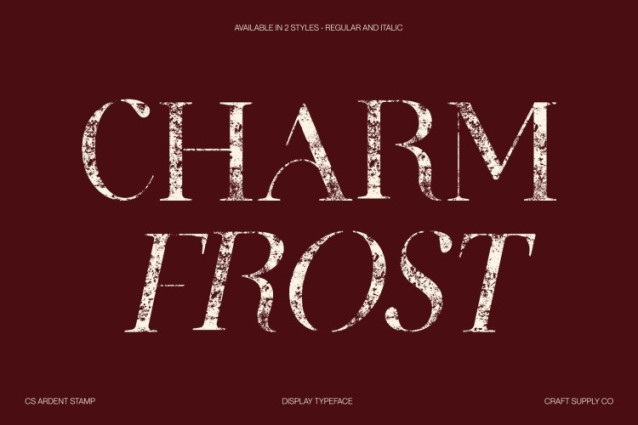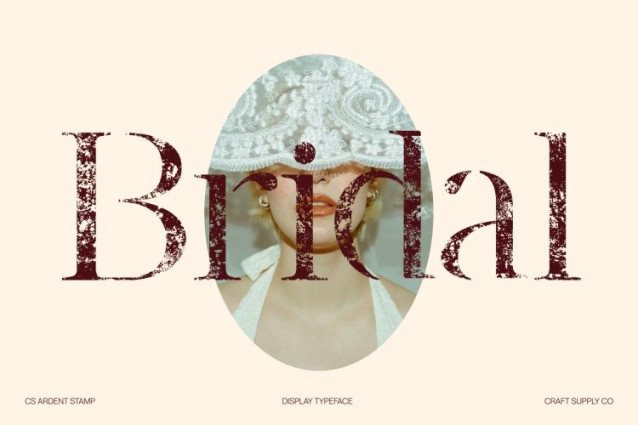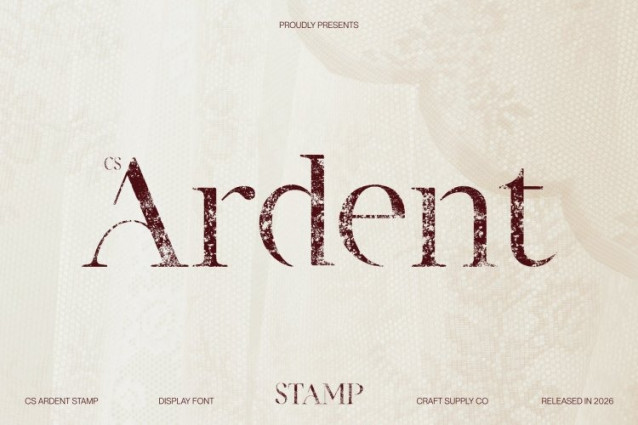
CS Ardent Stamp Font
CS Ardent Stamp Font This is an elegant serif display font that blends timeless serif craftsmanship with a modern stencil construction. Its bold serifs and clean cutout details create a structured, confident appearance that feels both refined and contemporary, making it suitable for sophisticated visual identities.
Stamp Texture with Classic, Aged Character
The stamped texture introduces subtle imperfections and distressed details, giving this font a vintage and handcrafted feel. This worn effect softens the sharp stencil cuts, adding depth, warmth, and an old-print aesthetic that enhances its artistic and authentic character.
Bold Elegance for Branding and Promotion
Designed to command attention while maintaining elegance, this font is ideal for branding, logos, packaging, and promotional materials. Its combination of strong serif forms, stencil clarity, and textured finish creates a distinctive visual voice that feels professional, memorable, and authoritative.
Versatile Display Font for Impactful Design
From high-end branding and editorial headlines to posters and advertising layouts, this font adapts seamlessly across various design applications. The fusion of classic serif elegance, modern stencil precision, and vintage stamp texture makes it a powerful choice for projects that demand sophistication with character.